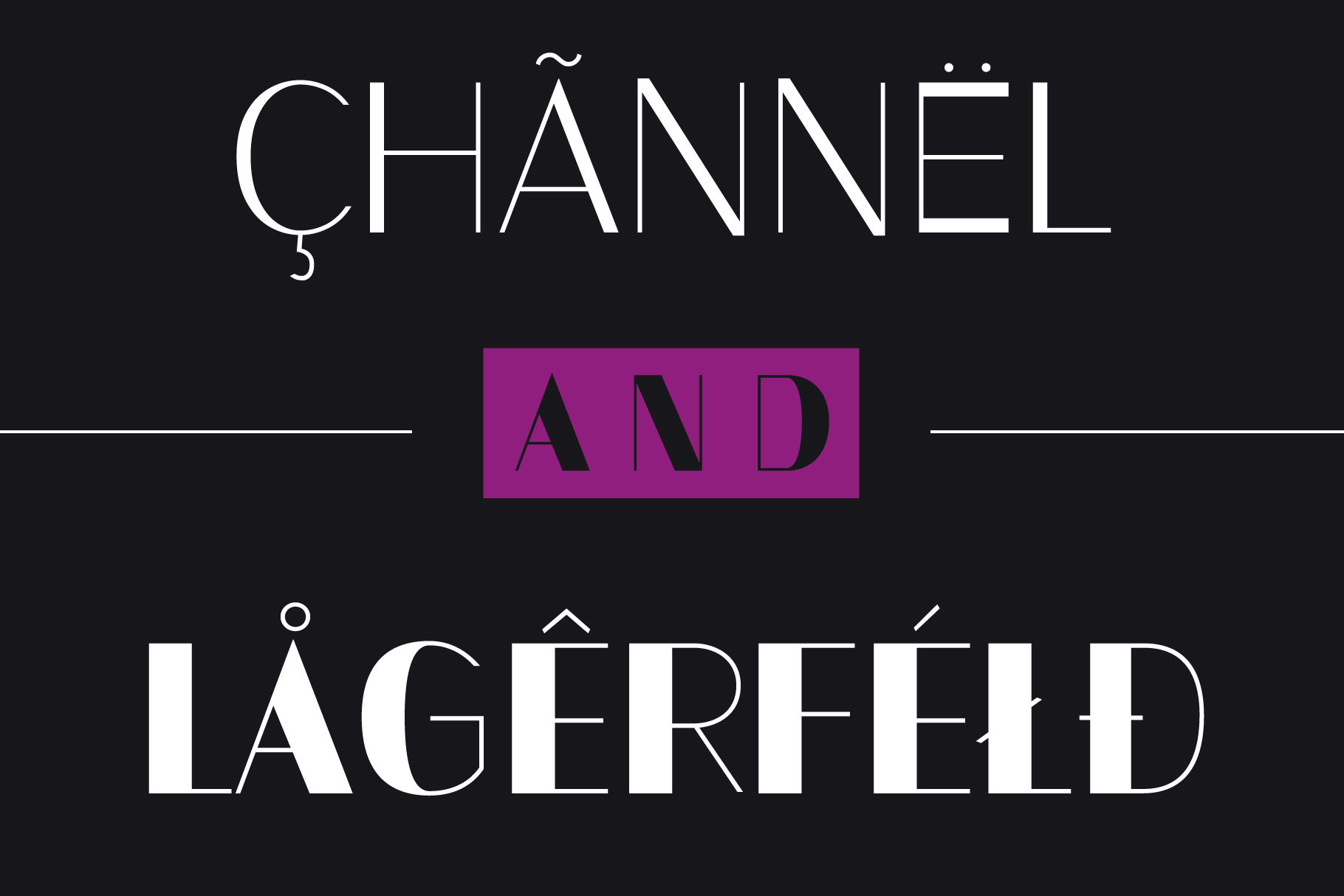
Typeface Contrast SANS Variable Font
The Sans Serif typeface Contrast SANS with 2 variable axes is designed from 2024 for the font foundry Typo Graphic Design by Manuel Viergutz.
18 font-styles (Thin to Thin, Thin, Light, Regular, Medium, SemiBold, Bold, ExtraBold, Thin to Black, Black to ExtraBold, Black to SemiBold, Black to Medium, Black to Regular, Black to Light, Black to ExtraLight, Black to Thin) with 220+ glyphs (Adobe Latin 2) incl. decorative extras like icons, arrows, catch words, dingbats, emojis, symbols, geometric shapes (type the word #LOVE for ❤ or #SMILE for ☺ as OpenType-Feature dlig) and stylistic alternates (2 stylistic sets).
For use in logos, magazines, posters, advertisement plus as webfont for decorative headlines. The font works best for display size.